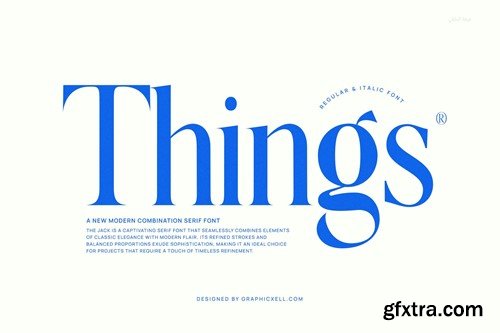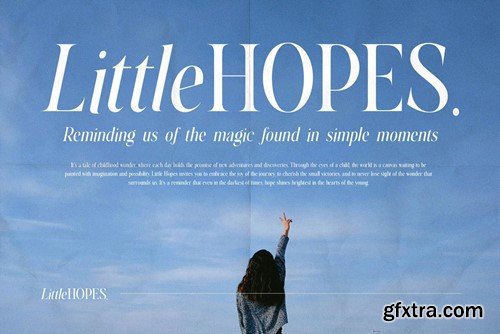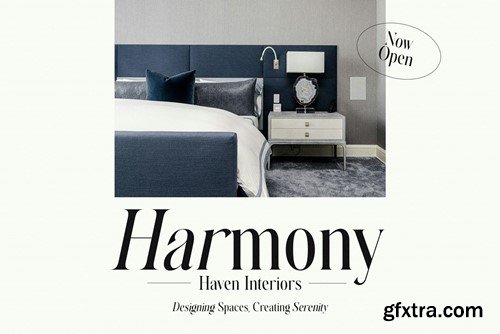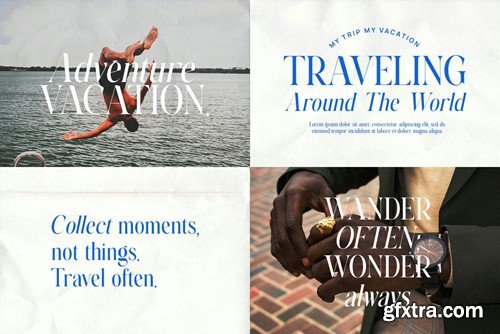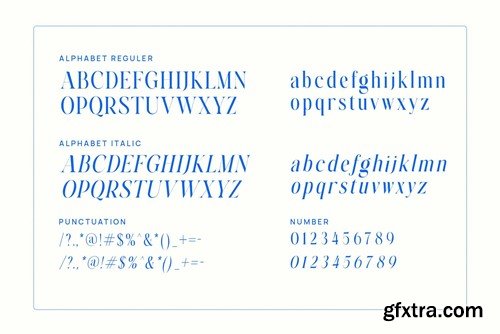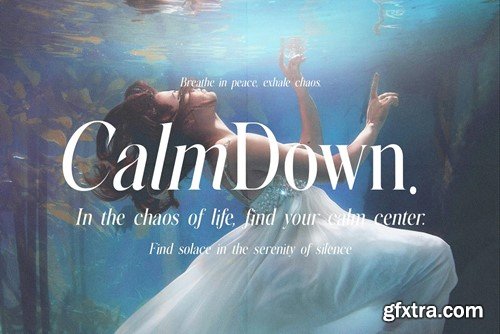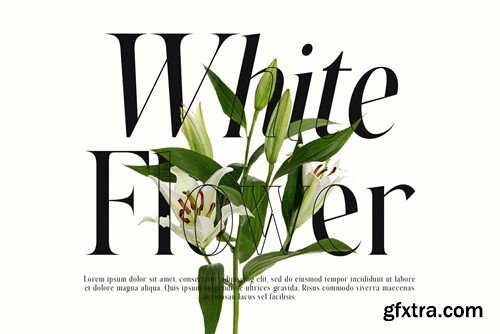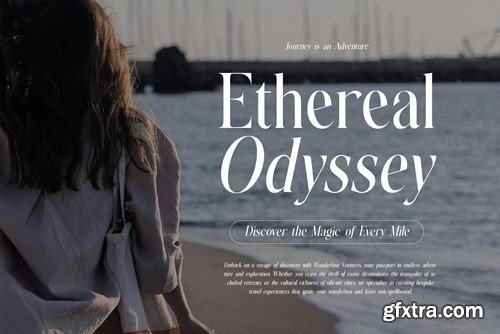
Things Serif Font is a new modern font that looks captivating with its classic and elegant elements. Besides that, the modern flair makes it much more interesting. This serif font is a seamless craft, thanks to its refined strokes. Then, the balanced proportions add the sophistication impression. Because of that, this modern serif font is very ideal for any project. If you are working on a project requiring a timeless refinement touch, Things Serif Font could be a great idea to try. With a simple letterform, this form offers a high level of readability. So, this is recommended for a formal project related to graphic designs. It will be amazing to attract people’s attention by adding this font on your magazine, journal, product design, or any other project. As a graphic designer, having this font will be an advantage because it can be used for various purpose. And, Things Serif Font will help you to make a satisfying project. What's Included: Recommended using Adobe Illustrator or Adobe Photoshop. Wish you enjoy our font and if you have any questions, don't hesitate to drop a message & I'm happy to help :)